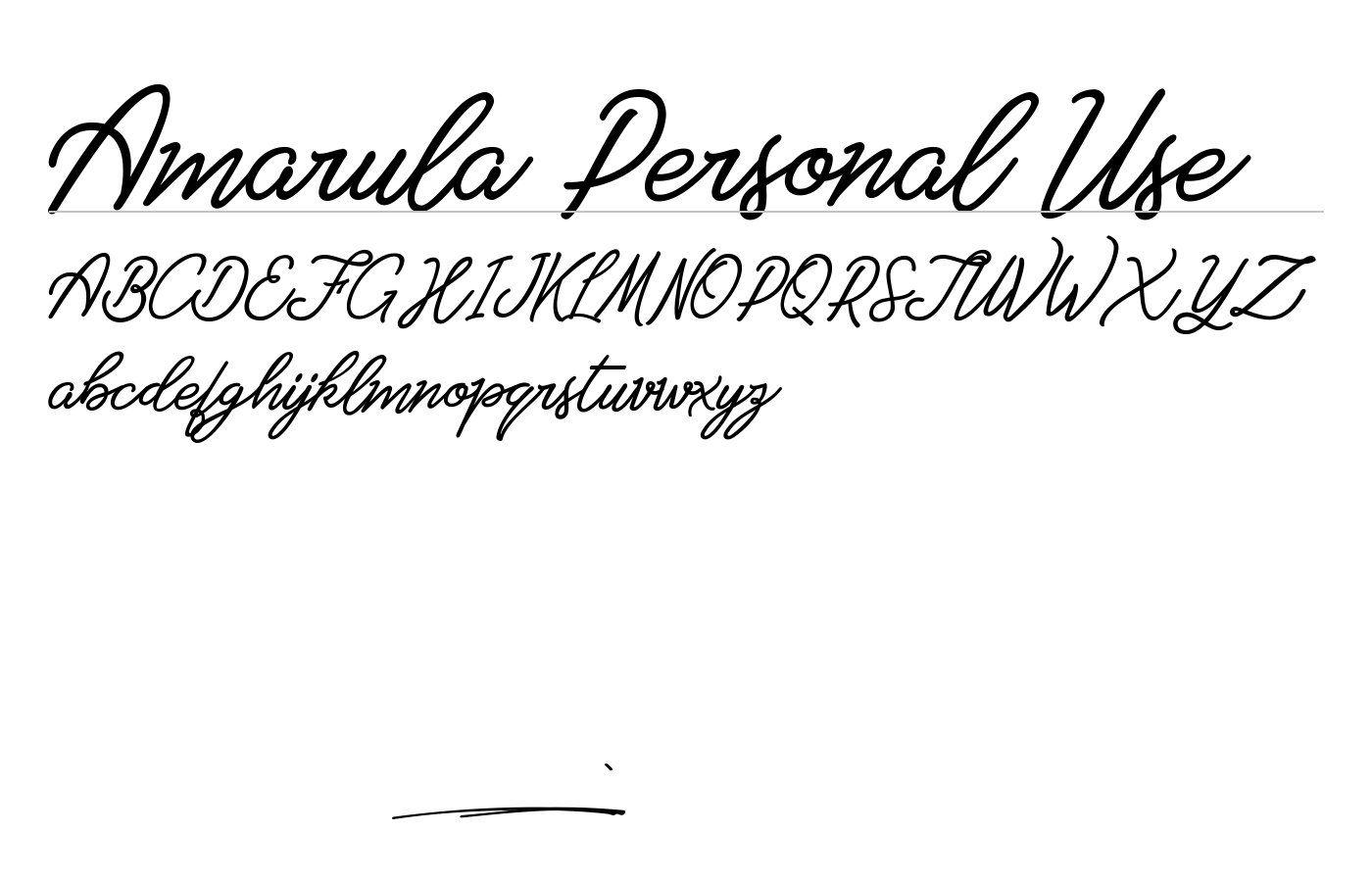
Amarula Personal Use is an elegant script font that features smooth, flowing strokes with a casual yet refined handwriting style. Its light to medium weight and slightly condensed letterforms create a delicate and sophisticated look, making it perfect for invitations, branding, and other projects that need a personal, graceful touch. This font works well in settings that call for charm and warmth, such as wedding designs, luxury packaging, and stylish logos.
Amarula Personal Use Font
About Amarula Personal Use Font
| Font family | Amarula Personal Use Font |